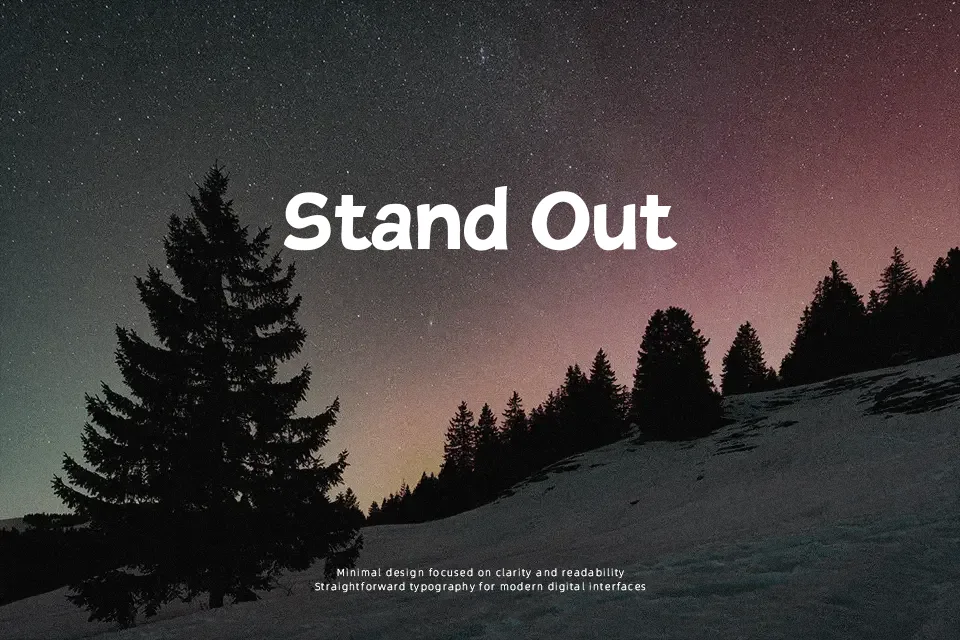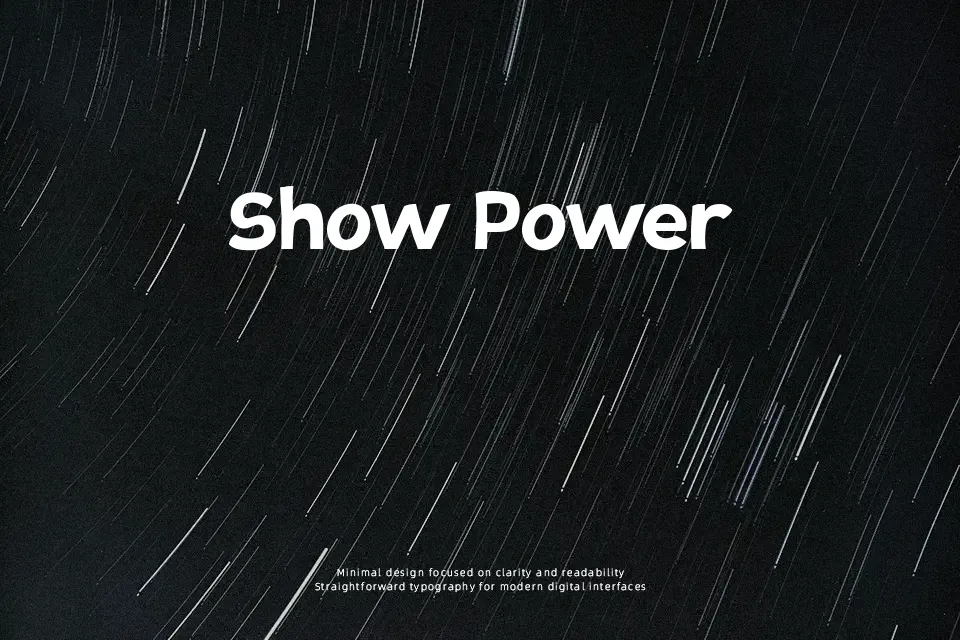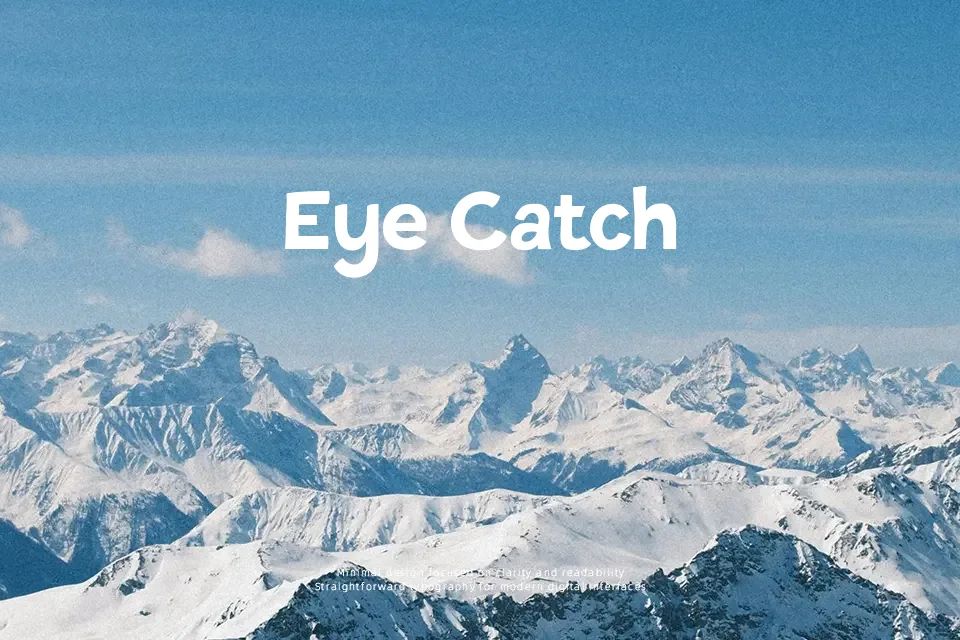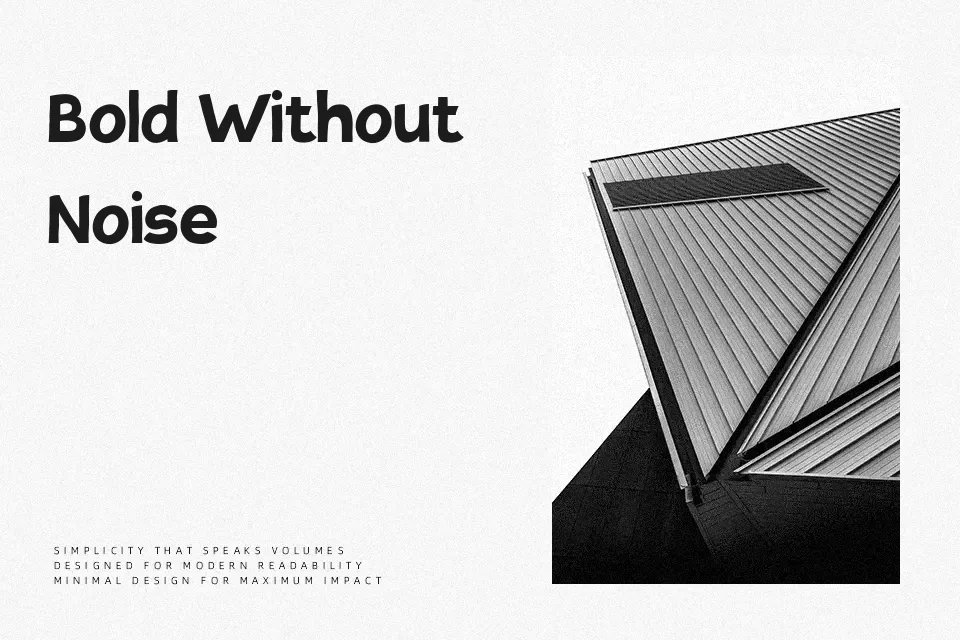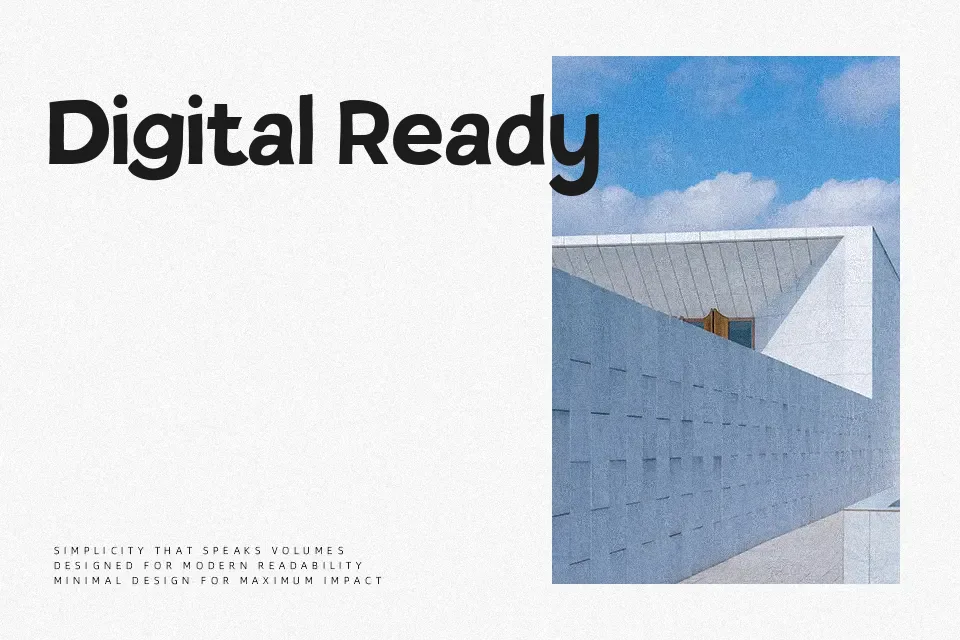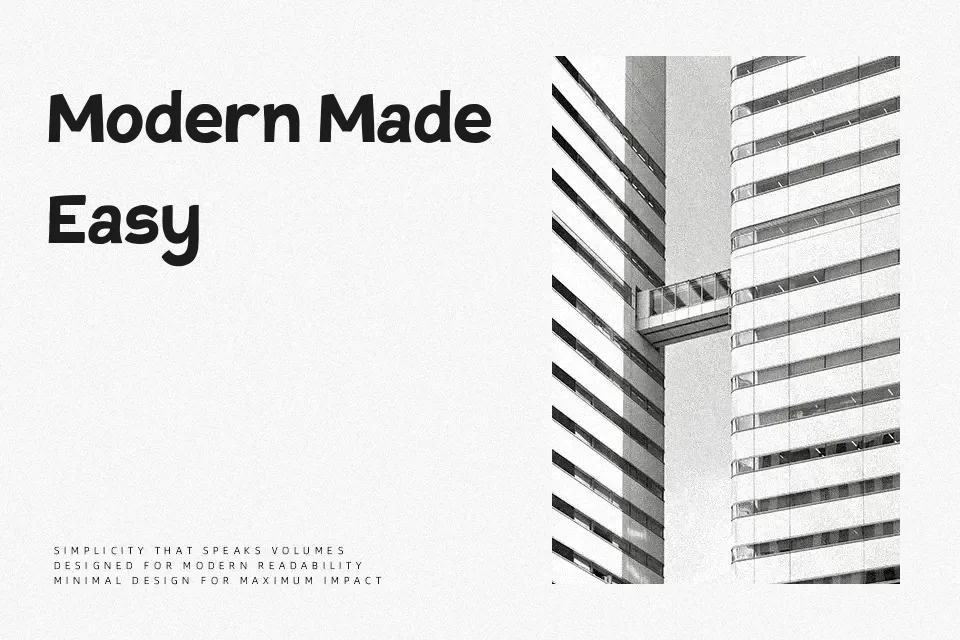
Tovari Sans Font
Designed by Verneri Kontto
Engineered with solid weights and pillowy terminals, Tovari Sans Font establishes an engaging presence through its unbracketed, uniform stroke style. The letterforms exhibit consistent proportions alongside moderately compact spacing, which preserves a steady visual rhythm across brief headlines and event banners. Open counters support immediate legibility in game interfaces, merchandise graphics, and cheerful promotional signage. However, the dense stroke distribution and condensed internal apertures substantially reduce reading comfort in continuous body copy or small technical labels. The typeface performs best when displayed at medium to large scale, where the generous silhouettes can command attention without crowding neighbouring characters.
Best For: children’s picture book covers, casual mobile game titles, animated series title cards, snack food packaging
Not Ideal For: long paragraph text, small interface labels, legal contracts, dense editorial layouts
Perfect for gaming, headline, and kids, with a bold and display style.